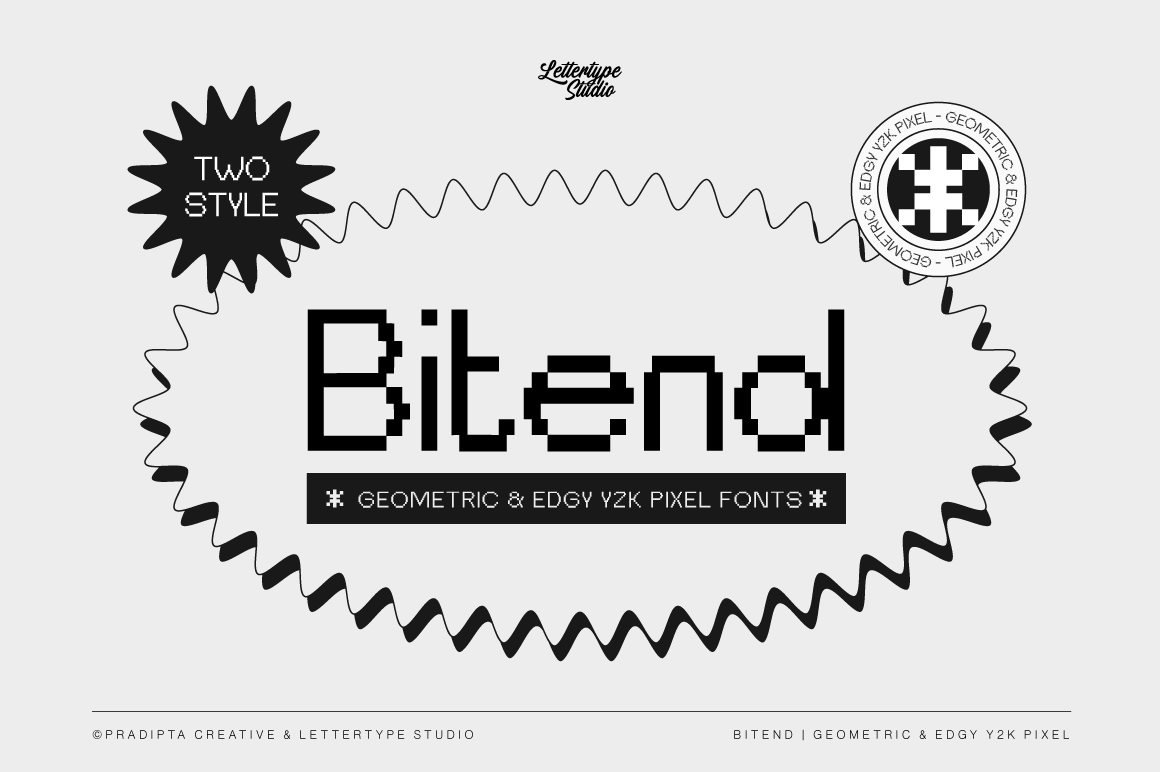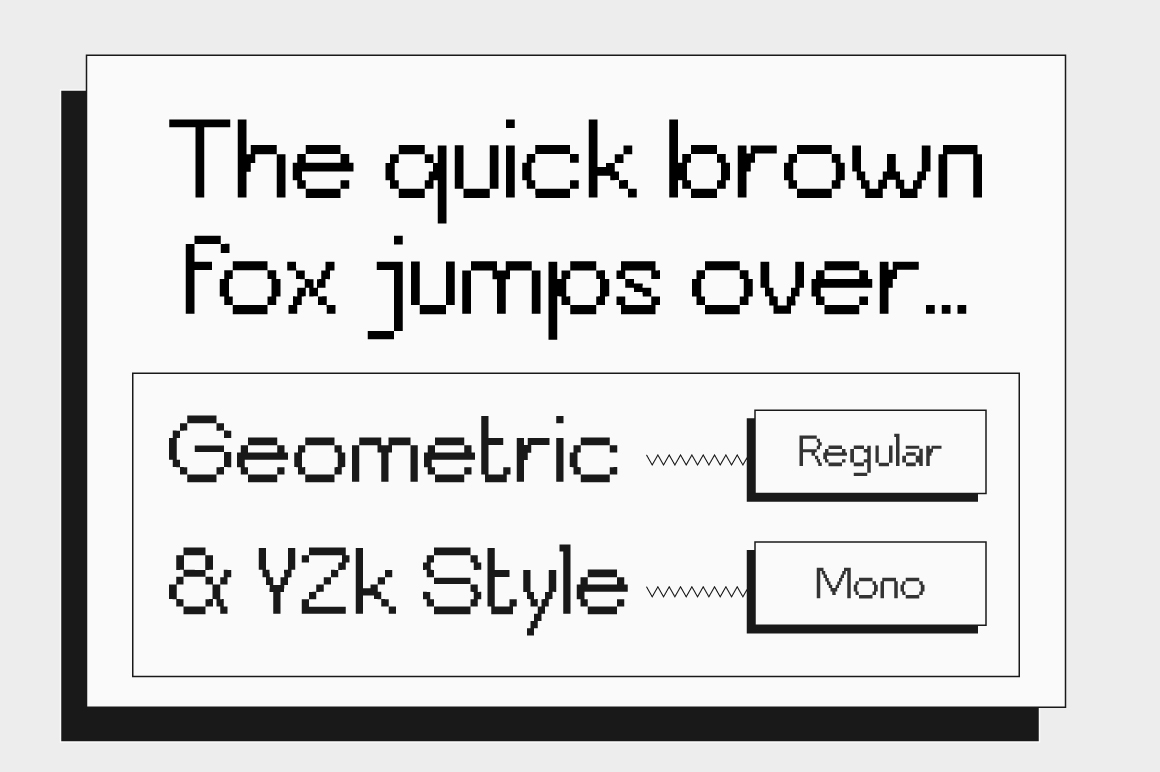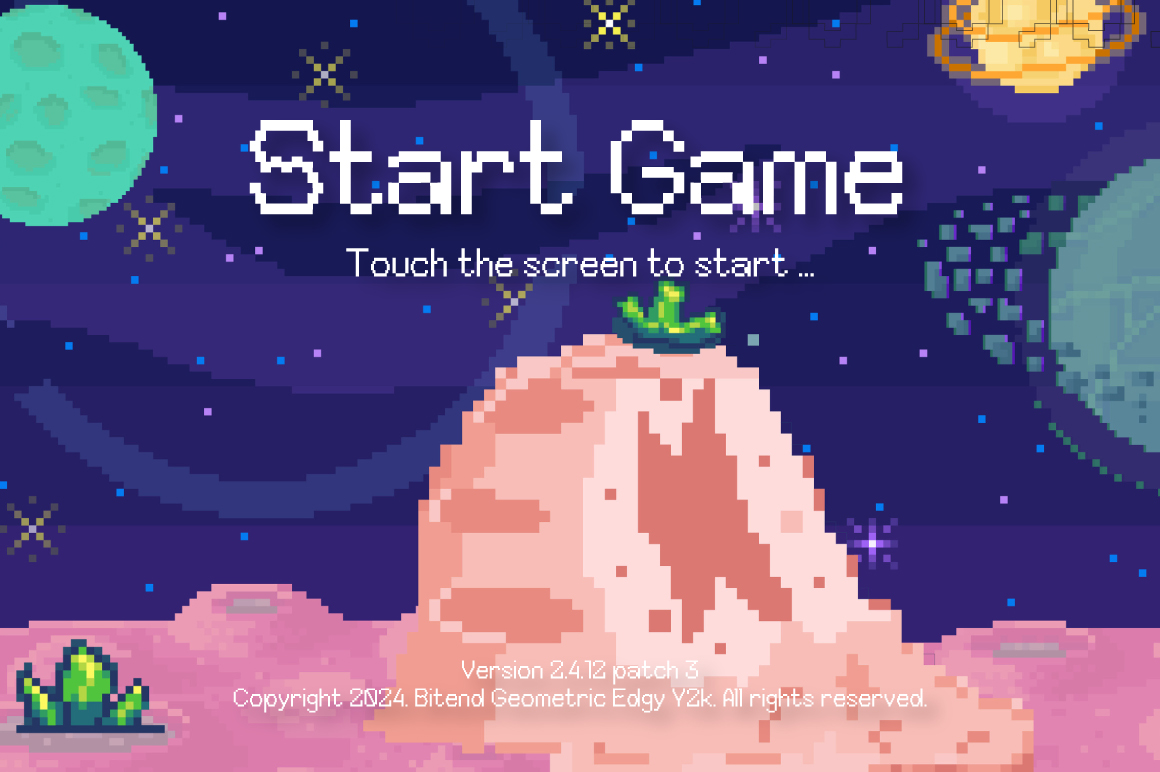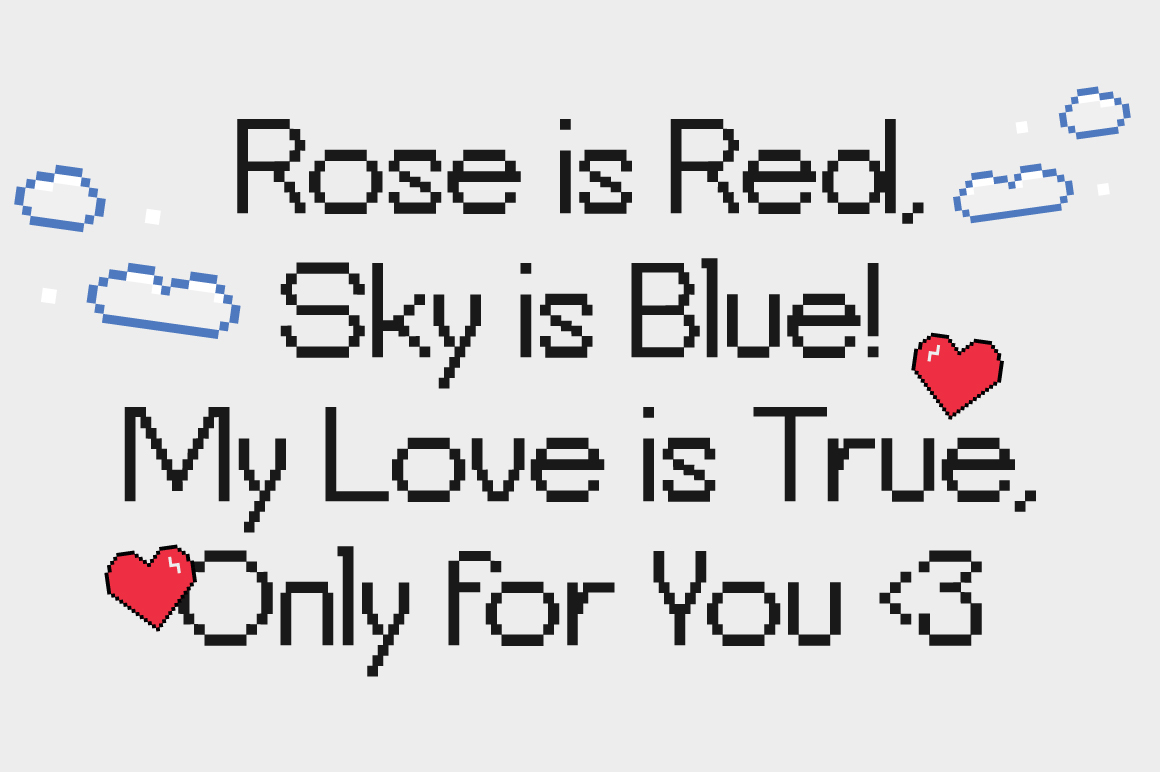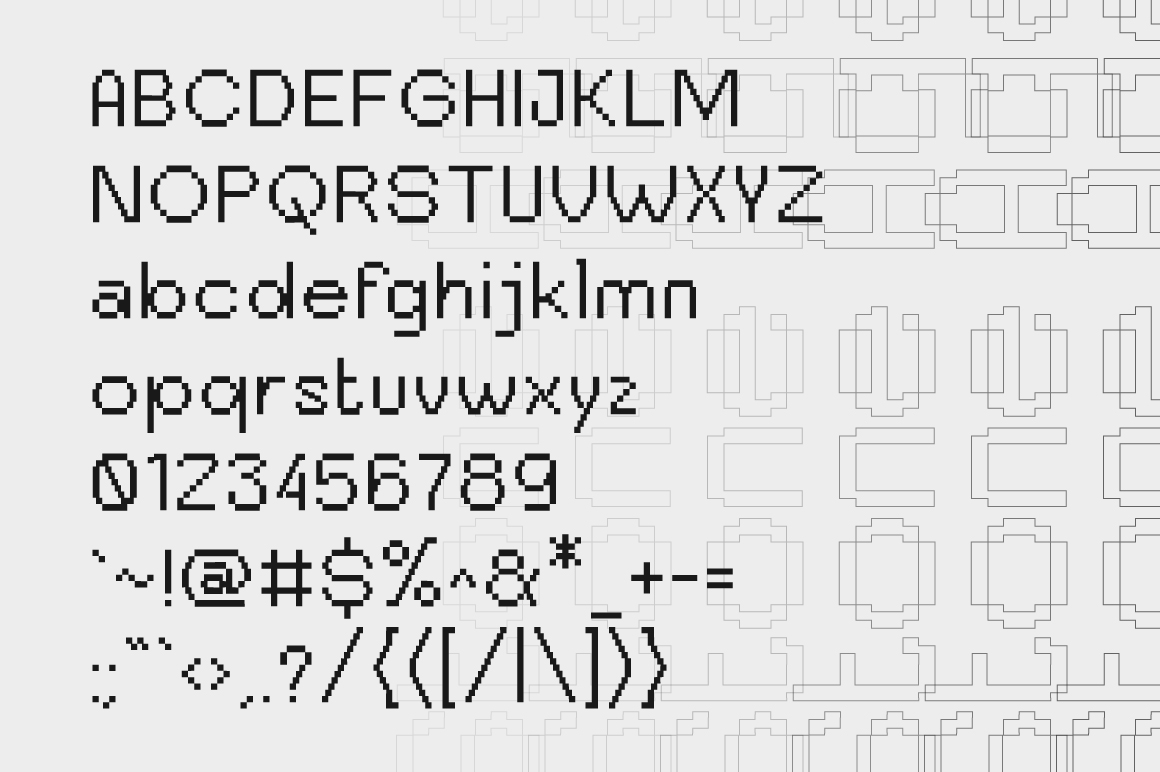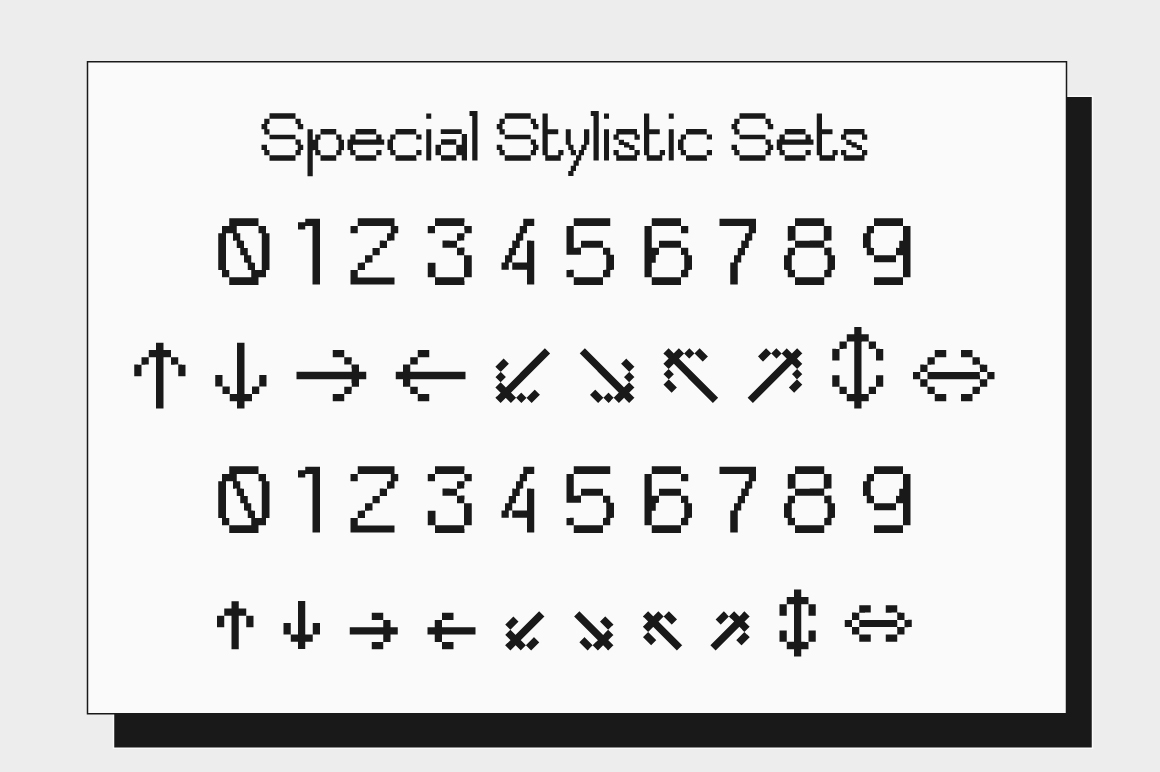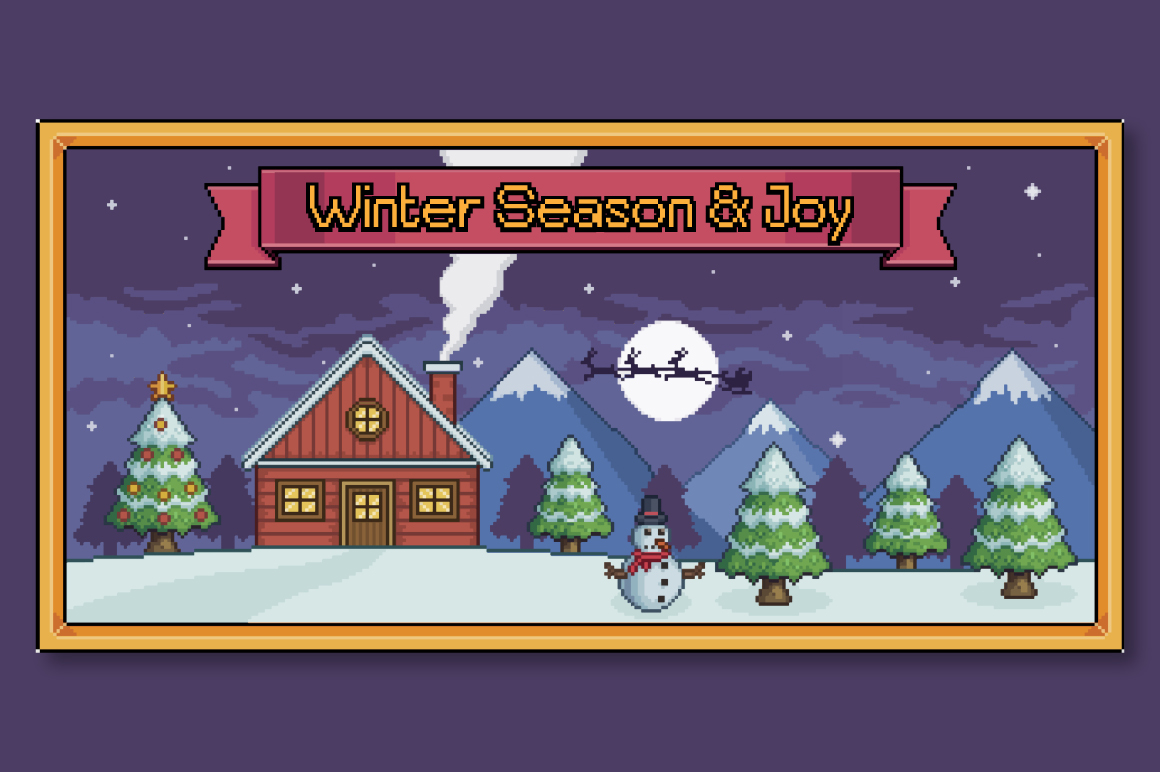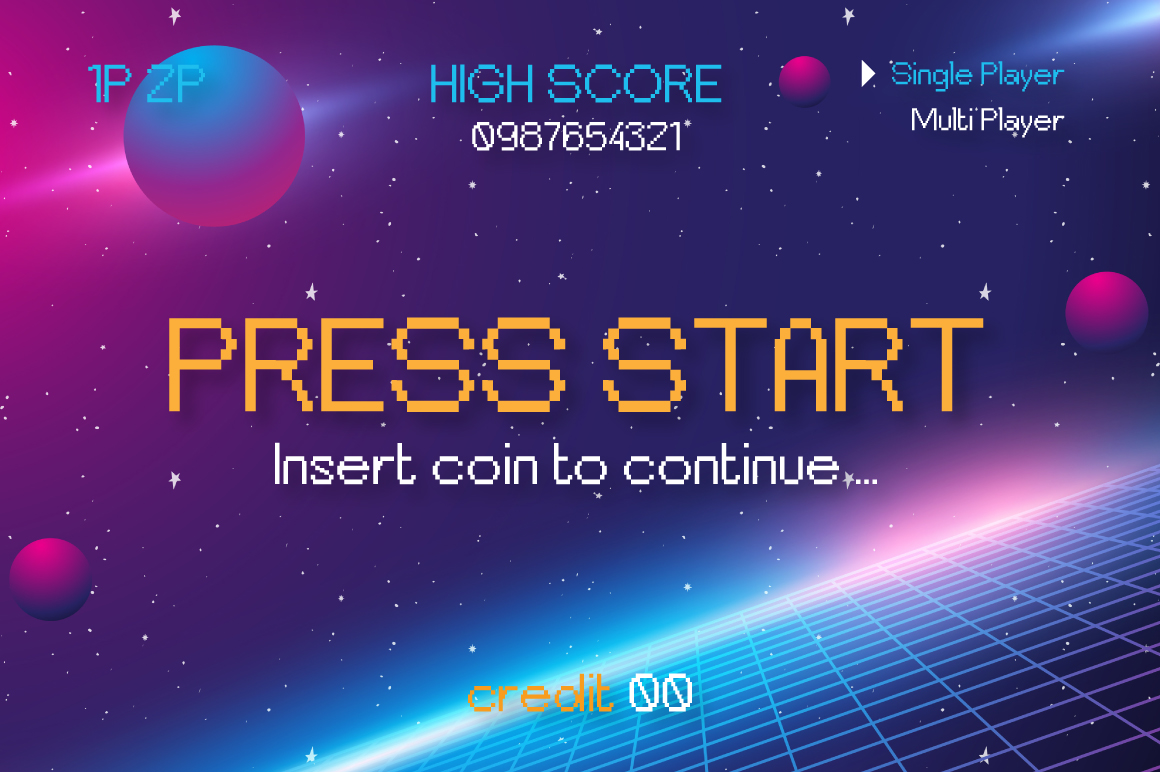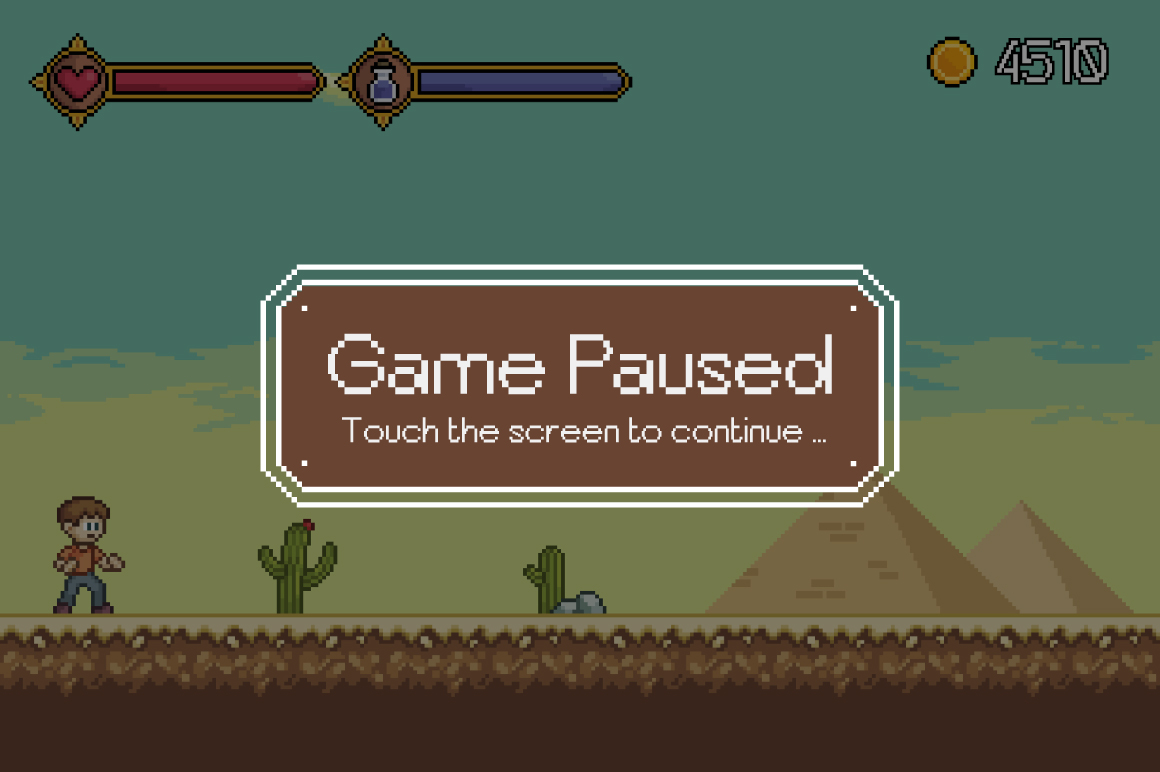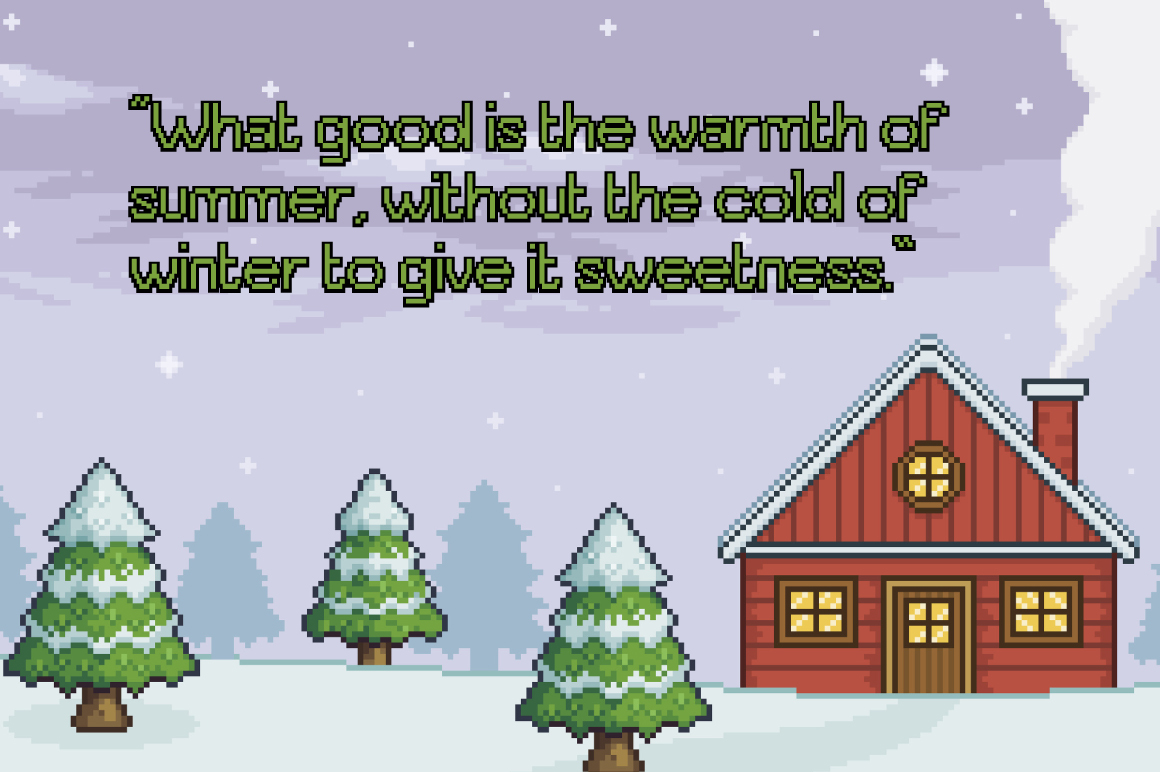
Bitend is a geometric pixel Y2K font that fuses 80s retro nostalgia with early 2000s futuristic style. Designed for bold, digital-forward projects, it’s ideal for gaming interfaces, posters, and branding that needs a sharp, tech-inspired edge.
With two styles — Normal and Monospaced — Bitend offers flexibility for both digital and print use. Its nostalgic yet modern personality makes it the perfect choice for designers seeking a balance between vintage arcade vibes and sleek geometric precision.
- Retro gaming interfaces & pixel-inspired branding
- Y2K digital aesthetics & nostalgic posters
- Album covers, websites, and motion graphics
- Tech-inspired editorials & minimalist design layouts
- Playful creative projects with bold vintage charm